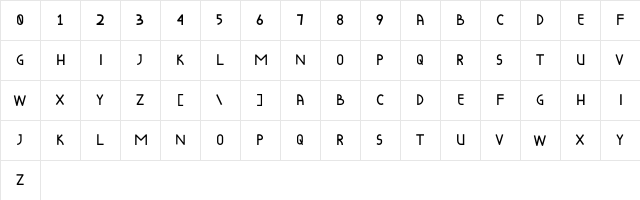
Zula Regular Font Preview
Zula Regular
Zula Regular Font Details
| Designer | Rangga Ilyasa |
Design Context for Zula Typeface
Zula takes a measured approach to typography — its balanced proportions and neutral character make it a reliable workhorse for both digital and print work.
Pro Tip: Pair Zula with a font of contrasting weight or personality to build a more expressive typographic hierarchy.